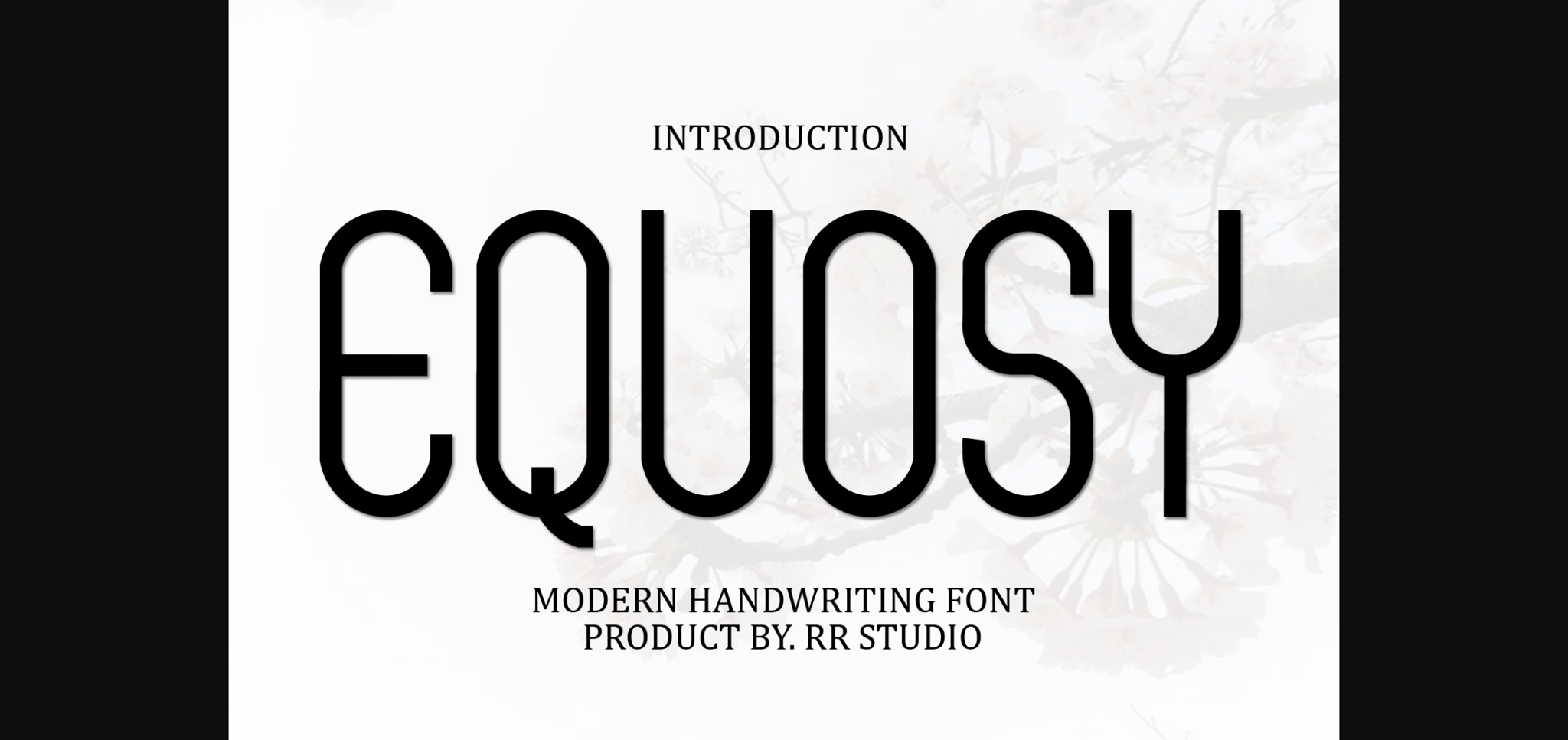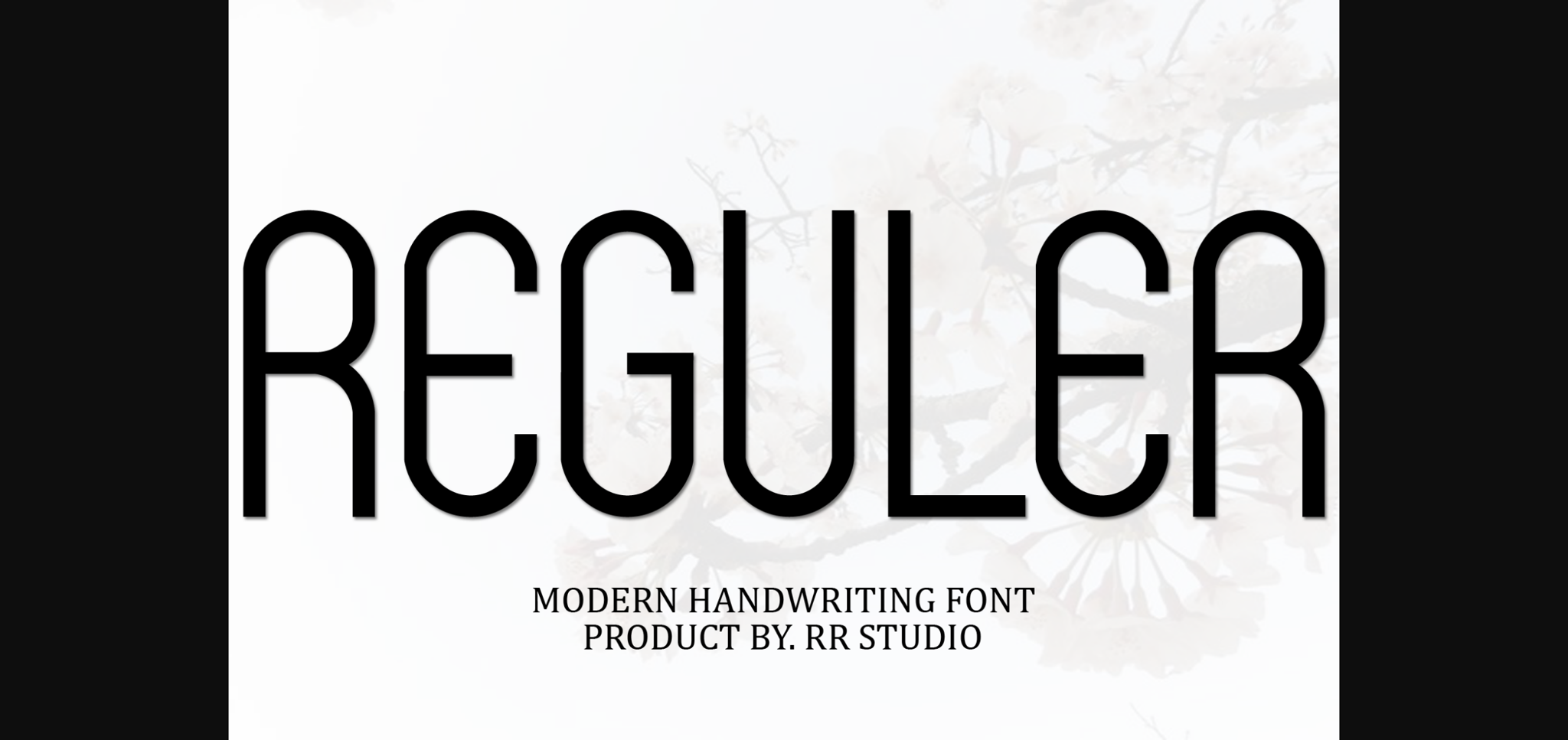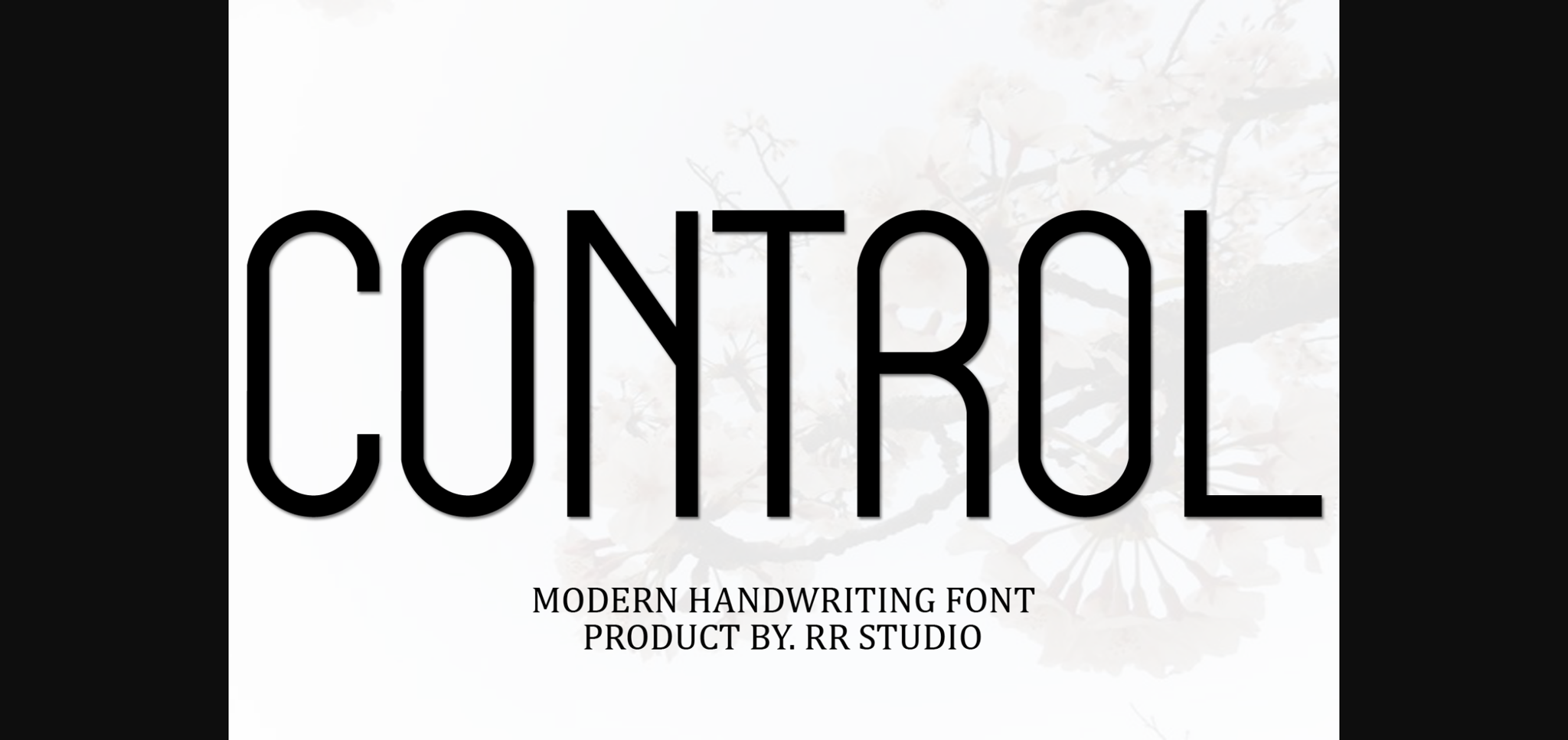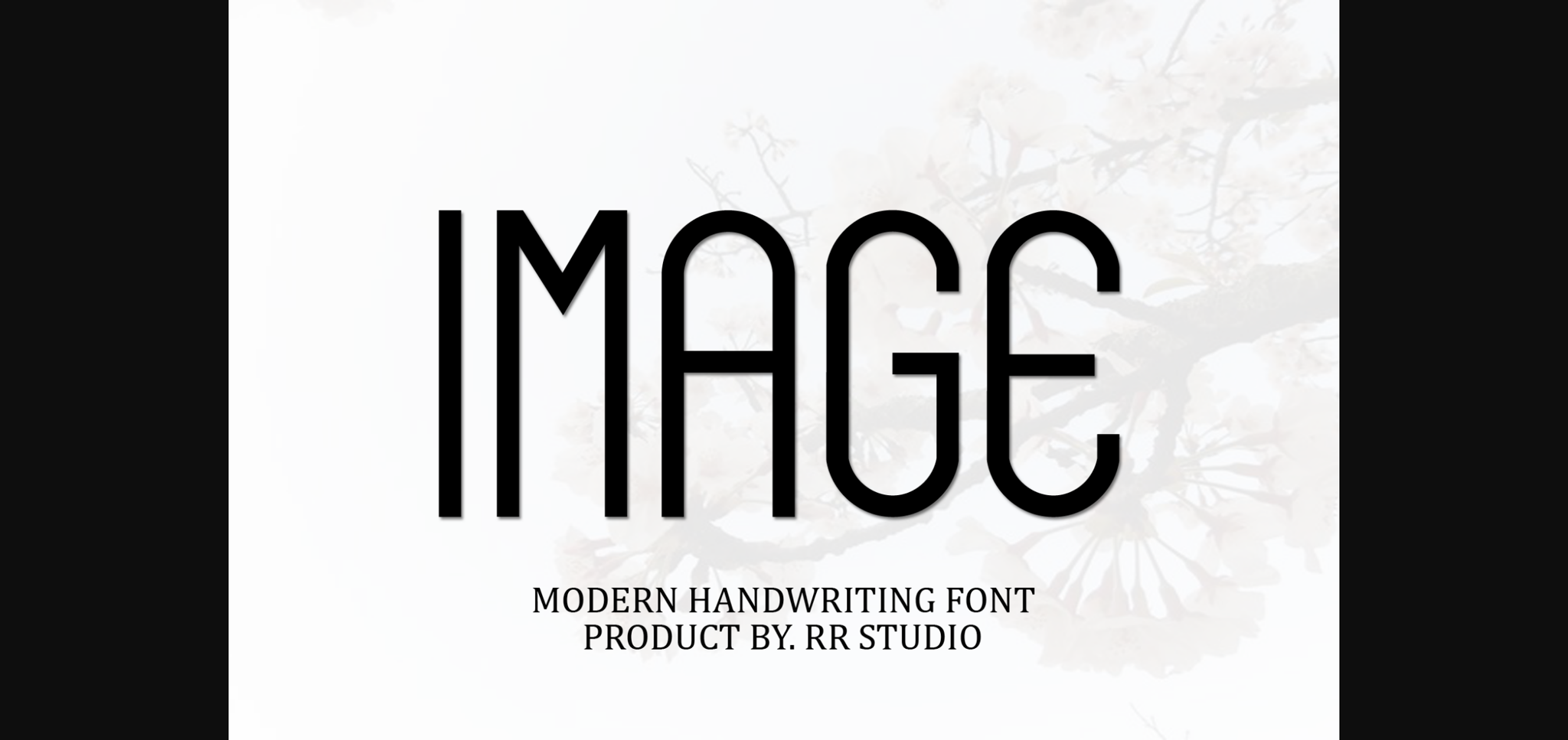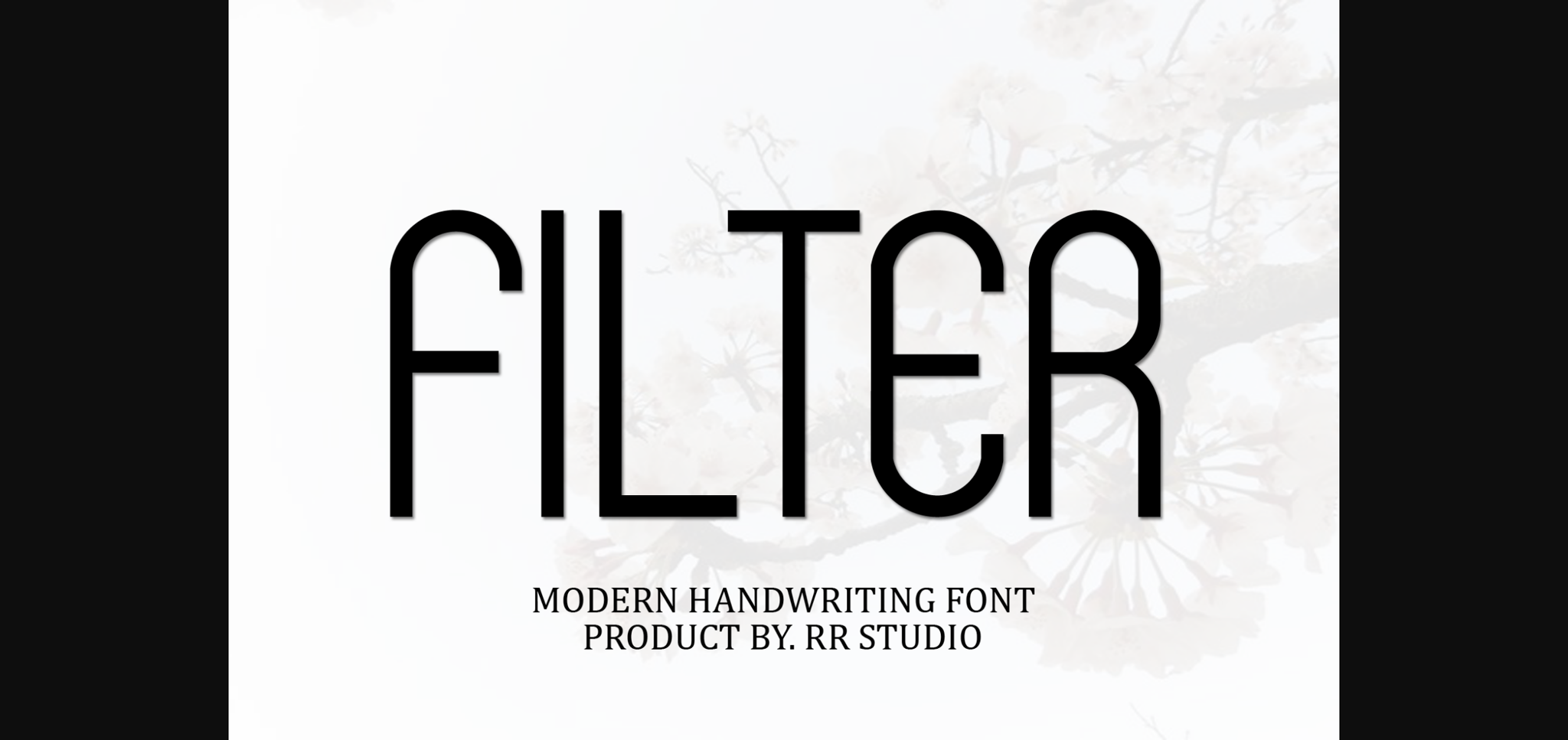
HomeSans Serif FontsEquosy Font Sans Serif Fonts Equosy Font FacebookXPinterestWhatsApp 1 of 7 ... Equosy Font Poster 2... Equosy Font Poster 3... Equosy Font Poster 4... Equosy Font Poster 5... Equosy Font Poster 6... Equosy Font Poster 7... About Equosy Font Equosy is a flowing, sleek, and trendy sans-serif font. Add it confidently to your crafty projects and enjoy the results! DOWNLOAD NOW People also explored Acorza Font Roselyn Font Designer Vintage Font Father & Mother Font Vaclice Script Font Virginia Font Efline Alean Font Aotria Font Black Point Duo Font 288 0 TagsEquosyEquosy Font Previous articleScolase FontNext articleHelagen Font LEAVE A REPLY Cancel reply Comment: Please enter your comment! Name:* Please enter your name here Email:* You have entered an incorrect email address! Please enter your email address here Website: Save my name, email, and website in this browser for the next time I comment. Personal Use Free Stigma Font Personal Use Free Read more about this font Mullia Personal Use Free Read more about this font Love Memories Personal Use Free Read more about this font Aldenburg Personal Use Free Read more about this font BLOG The 10 Best Handwriting Fonts to Add Personality to Your Designs 10 of the Best Handwriting Fonts for Adding Personality to Your Designs There will undoubtedly be no other better choice than handwriting fonts to give... Free vs Paid Fonts: Why Investing in Premium Fonts Is Worth It How to Cut Any Font on Cricut: Convert a Font to SVG (Free) Top 10 Handwritten Fonts That Elevate Your Designs